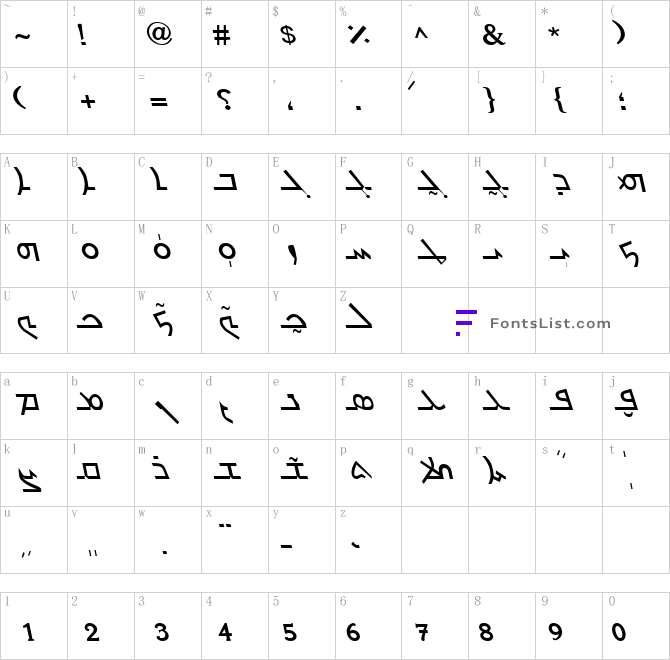
- Font Name:Carlo Ator
Carlo-Ator-Italic.ttf is a very beautiful artistic font, Carlo-Ator-Italic.ttf is widely used in the design and printing of various books and pictures,Carlo-Ator-Italic.ttf has a strong visual impact,Carlo-Ator-Italic.ttf is a commonly used font in newspapers, magazines and books, and is used in posters, e-commerce Poster design, store design, logo design, font design and other fields.Carlo-Ator-Italic.